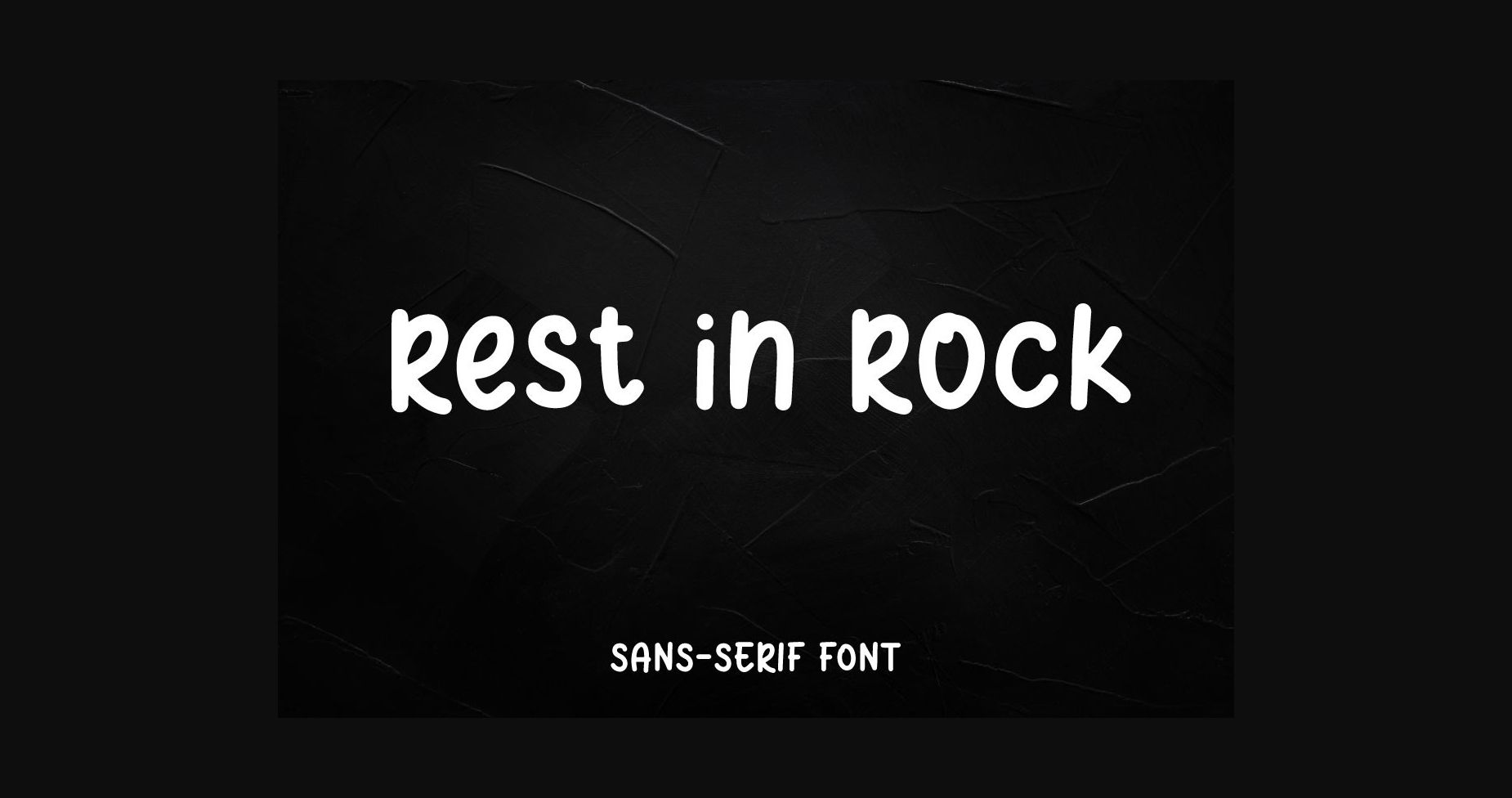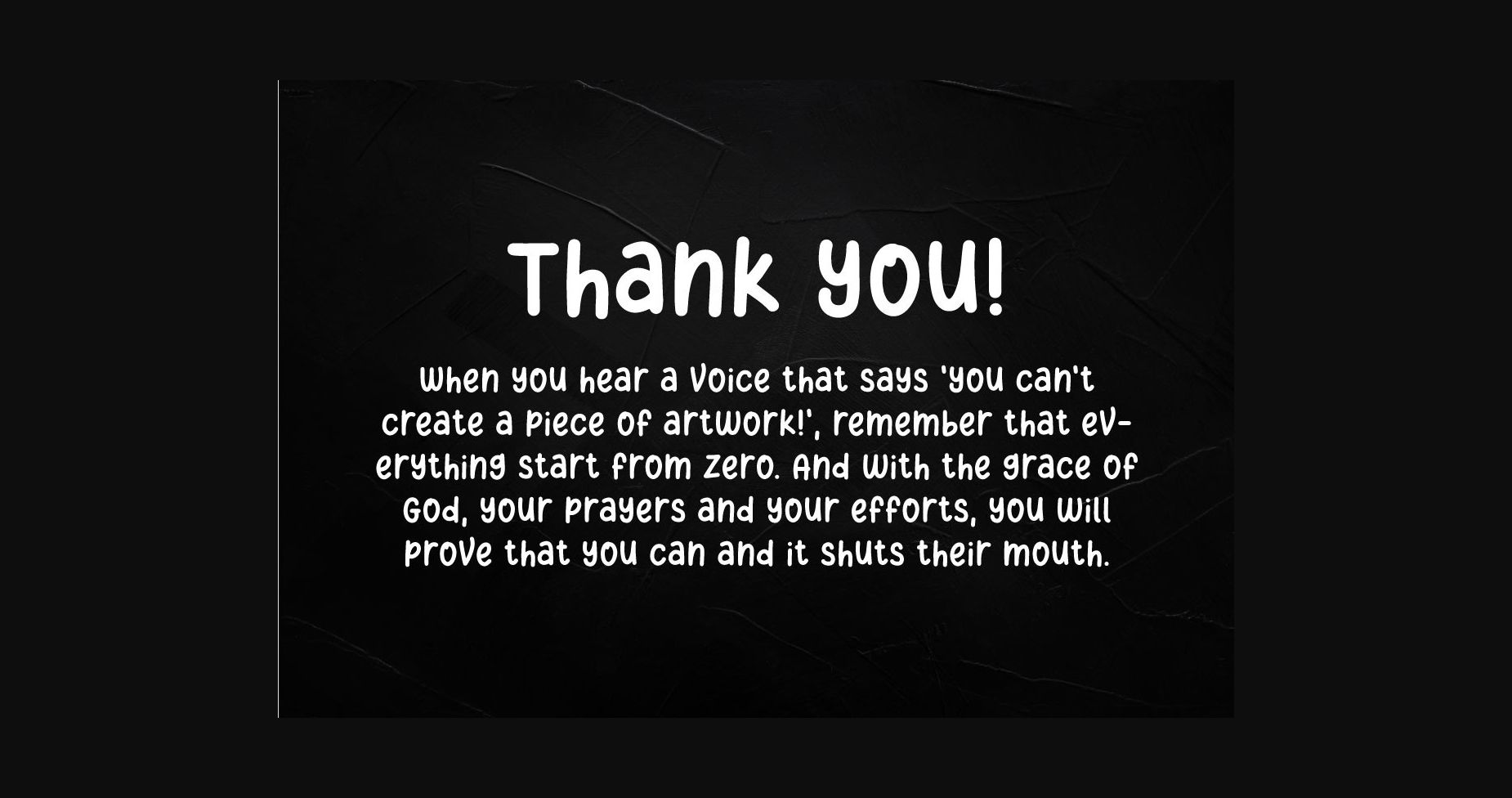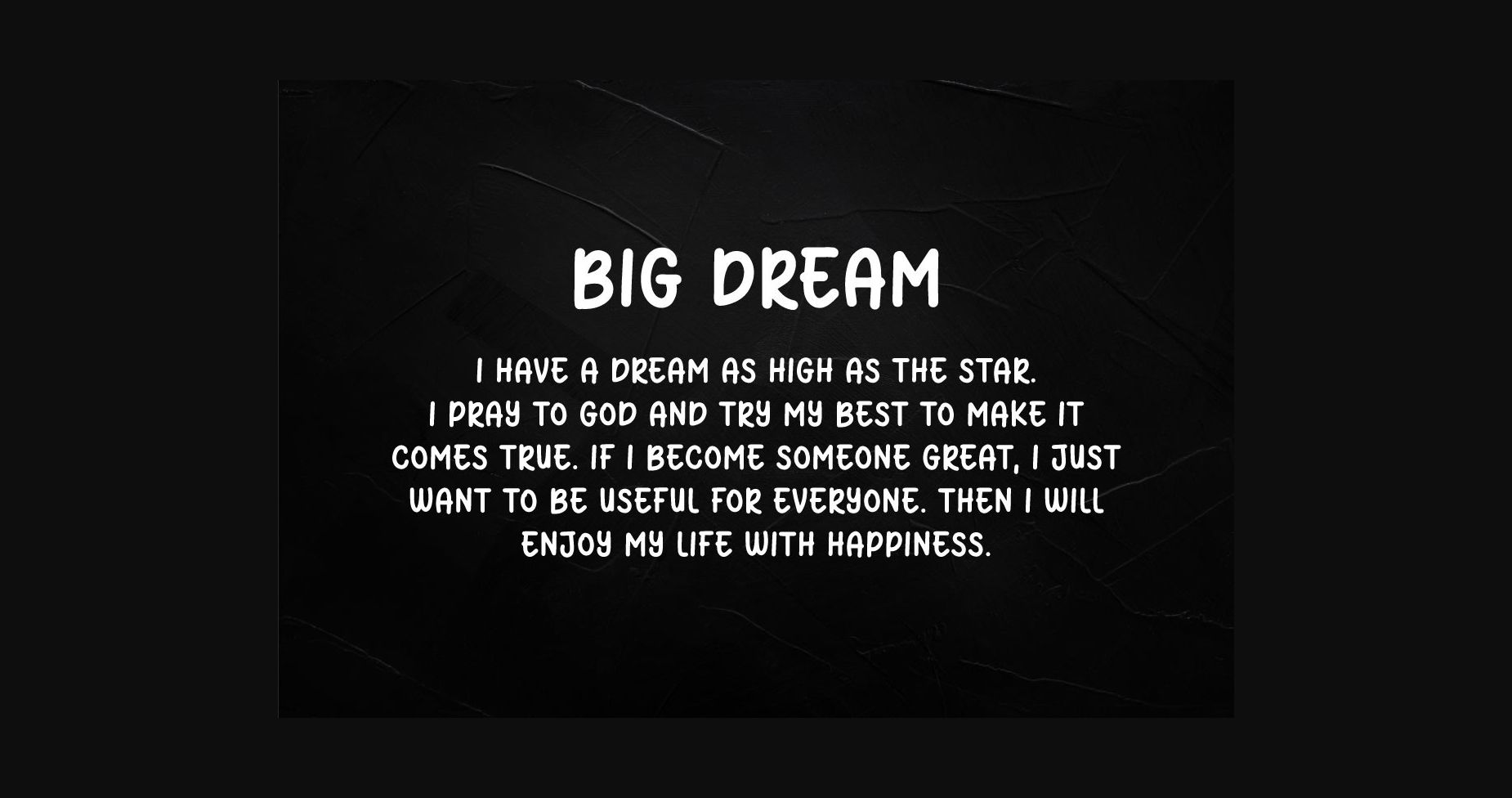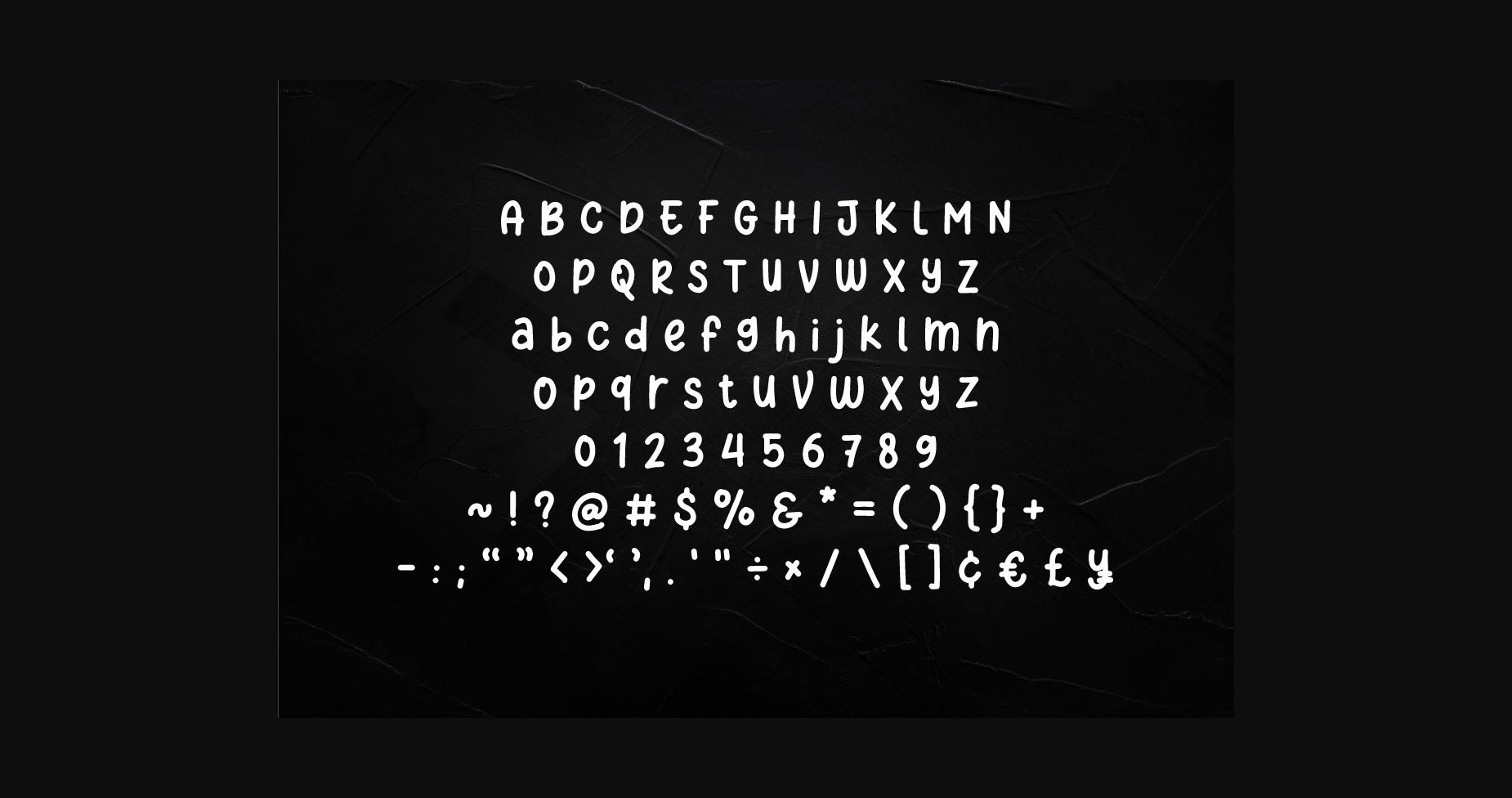
HomeSans Serif FontsRest in Rock Font Sans Serif Fonts Rest in Rock Font FacebookXPinterestWhatsApp 1 of 6 ... Rest in Rock Font Poster 2... Rest in Rock Font Poster 3... Rest in Rock Font Poster 4... Rest in Rock Font Poster 5... Rest in Rock Font Poster 6... About Rest in Rock Font Rest in Rock is a cool and modern sans serif font. Masterfully designed to become a true favorite, this font has the potential to bring each of your creative ideas to the highest level! DOWNLOAD NOW People also explored Happy Birthday Font Candy Canes Font Eloise Font Mochon Avalanche Korneg Font Cyber Soulja Font Novaria Font Goldstone Font 513 0 TagsRest in Rock Font Previous articleThinking FontNext articleMonday Tea Font LEAVE A REPLY Cancel reply Comment: Please enter your comment! Name:* Please enter your name here Email:* You have entered an incorrect email address! Please enter your email address here Website: Save my name, email, and website in this browser for the next time I comment. Personal Use Free Omira Personal Use Free Read more about this font Adventure Font Personal Use Free Read more about this font Chandella Personal Use Free Read more about this font Eigha Personal Use Free Read more about this font BLOG Free Fonts Risk: Why Free Fonts Can Be Dangerous for Designers Free Fonts Risk: Why Free Fonts Can Be Dangerous for Designers Using free fonts is a common practice in web and graphic design. However, the... Best Fonts for T-Shirt Design – Top 2025 Picks The 10 Best Handwriting Fonts to Add Personality to Your Designs Exploring Font Trends